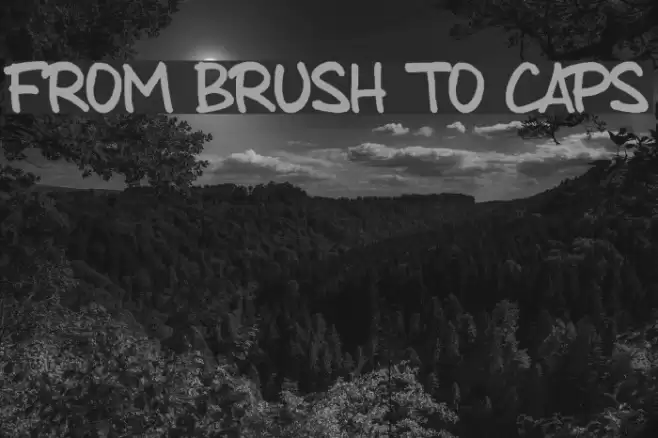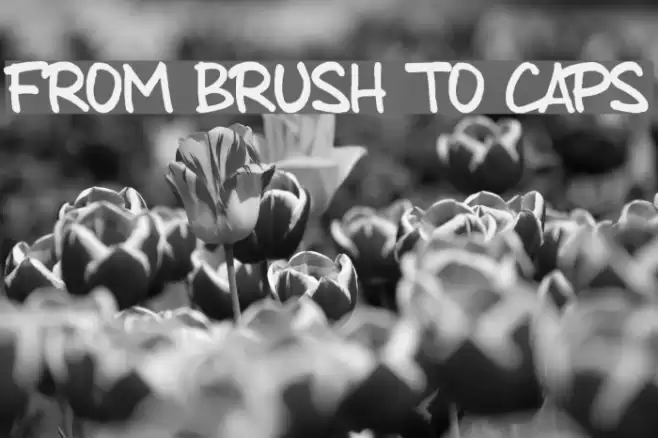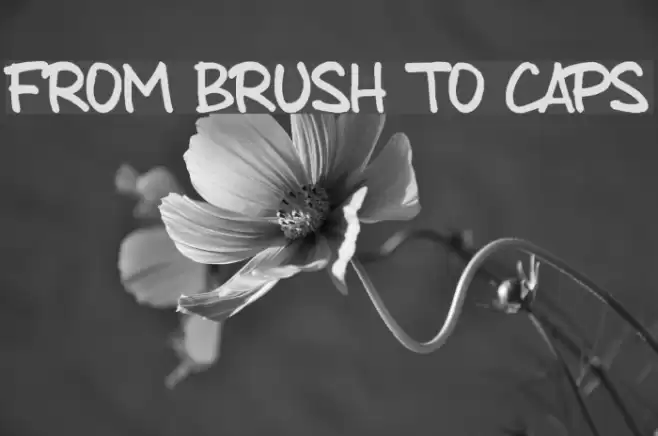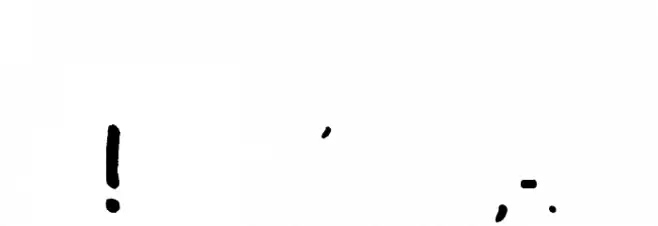
from brush to caps Font
from brush to caps Description
This font features a bold, hand-drawn style with a brush-like texture, giving it a casual and artistic appearance. The uppercase letters are prominent and slightly irregular, adding to the organic feel. The strokes are thick and consistent, with rounded edges that soften the overall look. The font conveys a sense of creativity and spontaneity, making it suitable for projects that require a personal touch. The characters are well-spaced, ensuring readability while maintaining the playful aesthetic. This font is ideal for designs that aim to capture attention with a unique and informal vibe.
A bold, hand-drawn font with a brush-like texture and casual style from Uncategorized fonts.
- Proposed Projects: Ideal for posters, greeting cards, social media graphics, and creative branding.
- Overall Style: Casual, Artistic